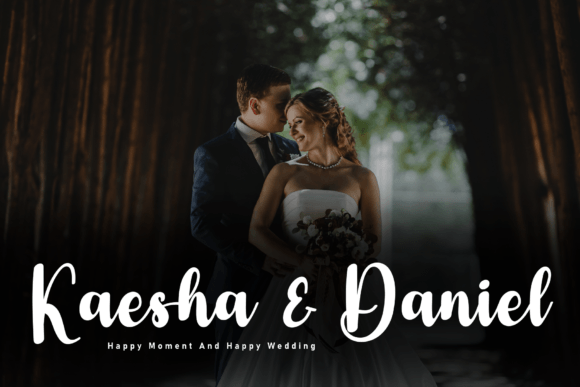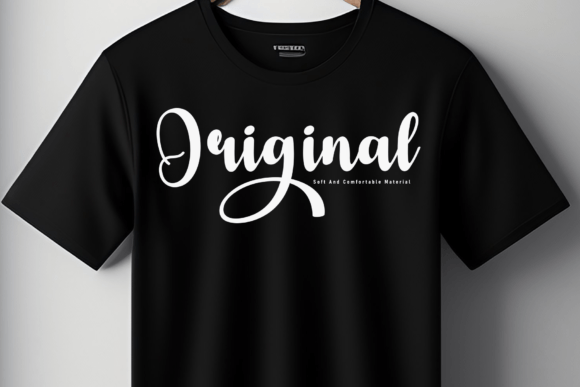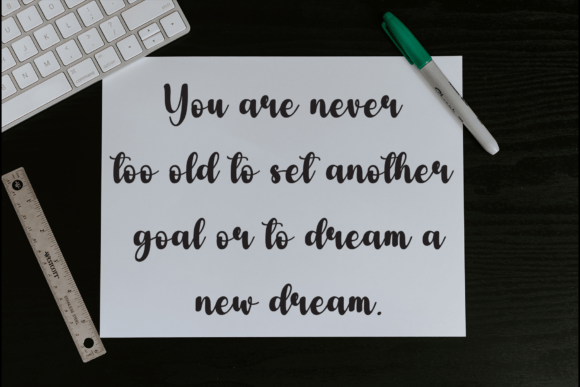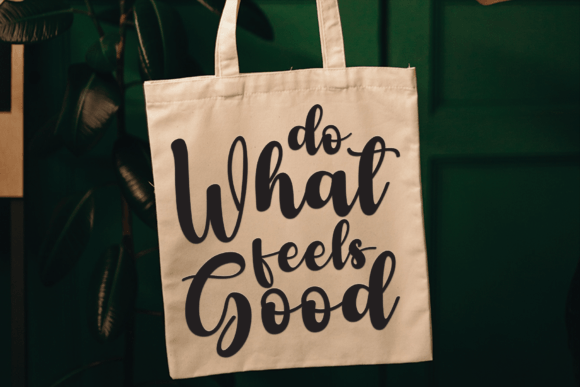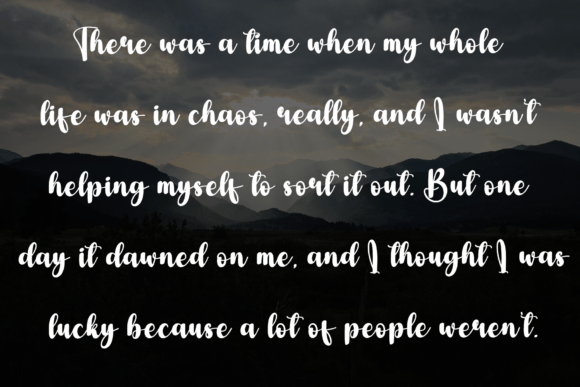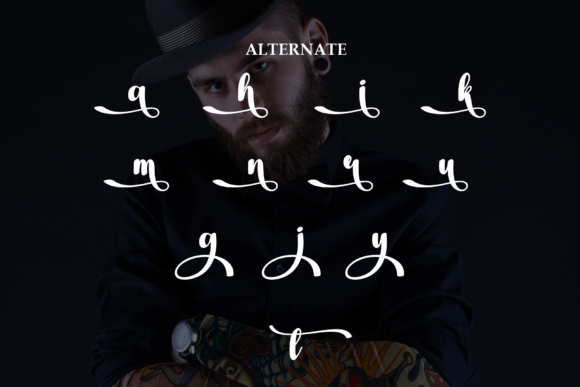
Introduction to Gothic Boys Font
Gothic Boys is a sweet and friendly handwritten display font.
Cute and fun, this font is ideal for writing wedding invitations, cards, or any other design that might need a fun touch .